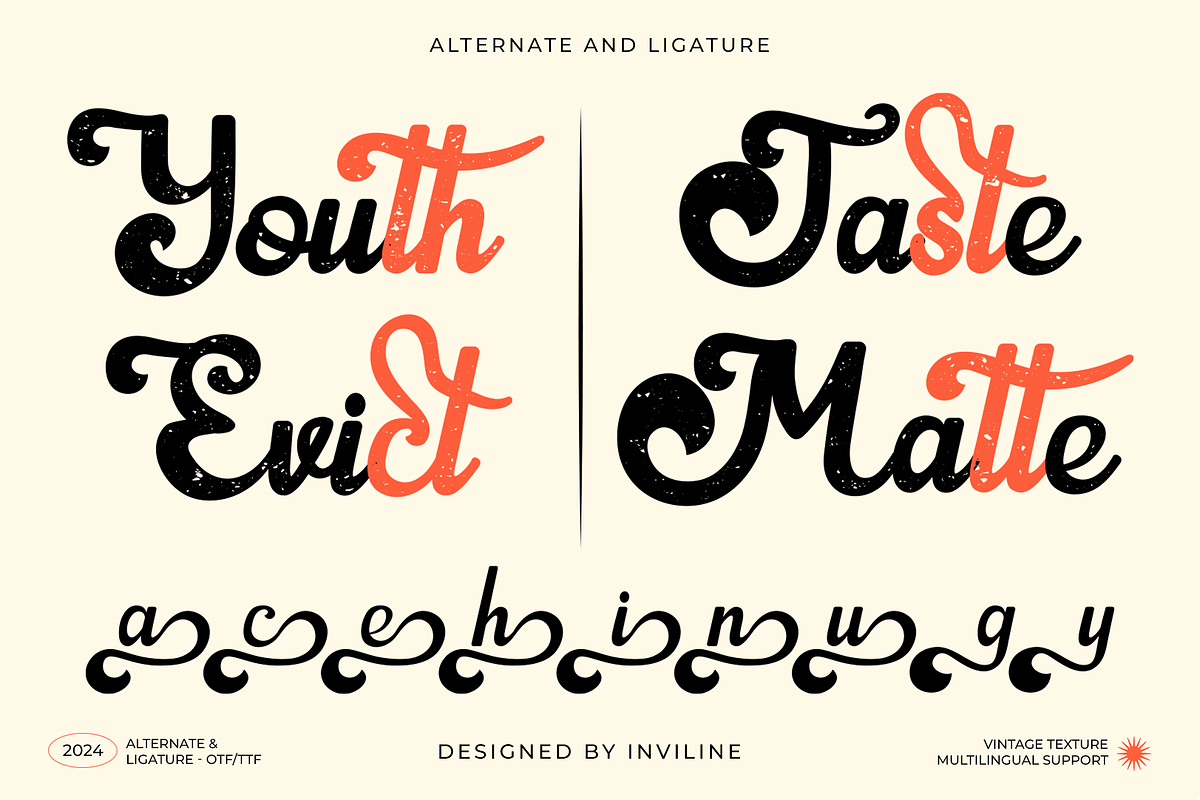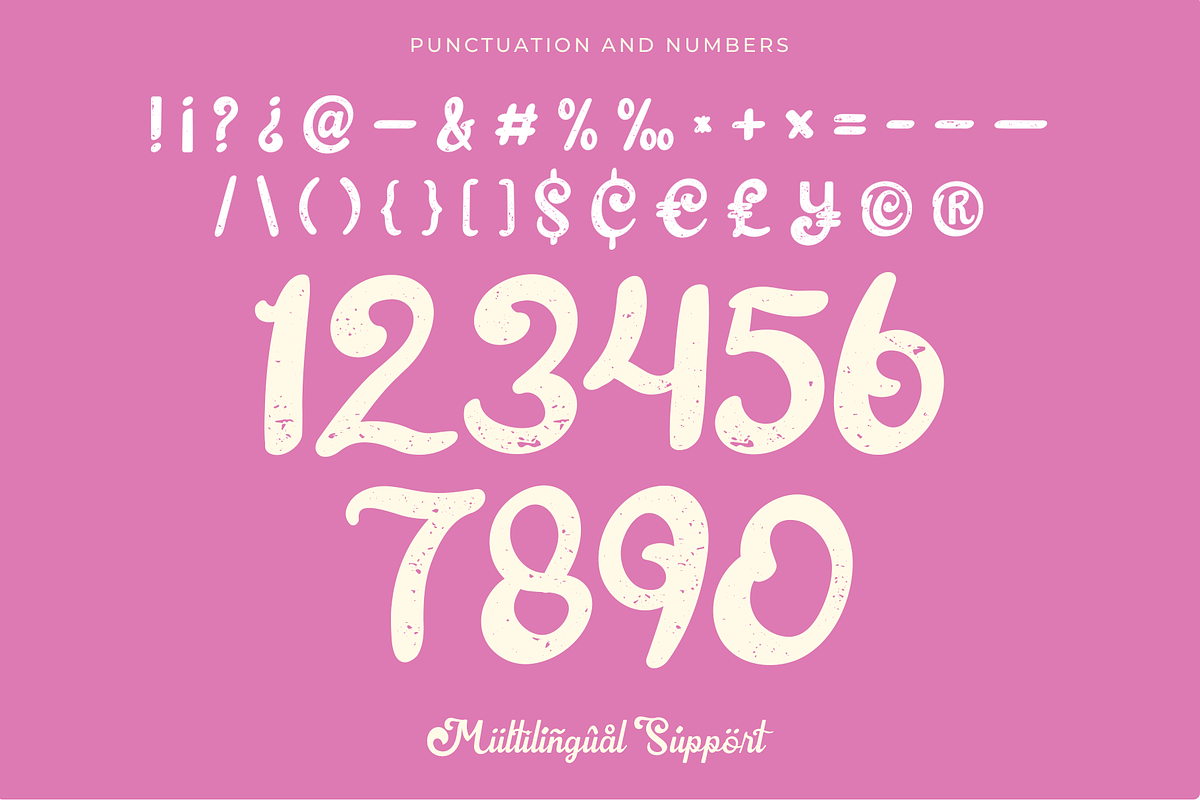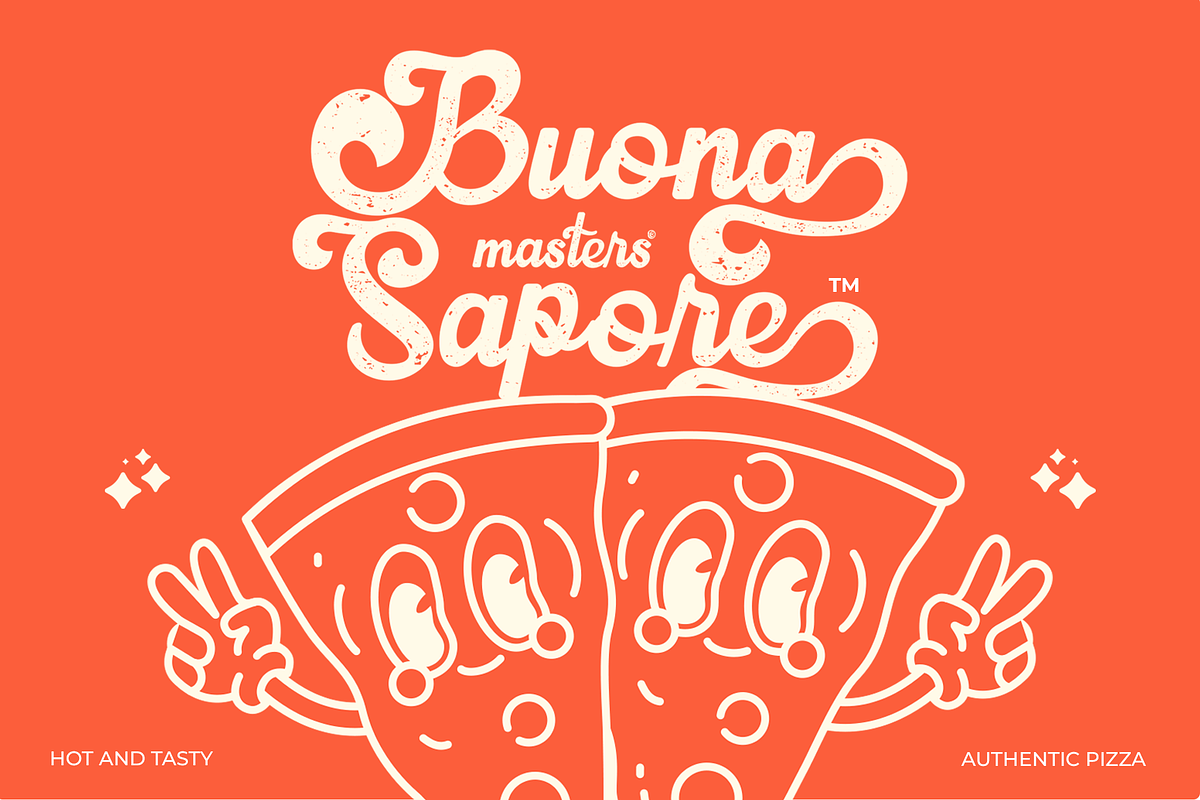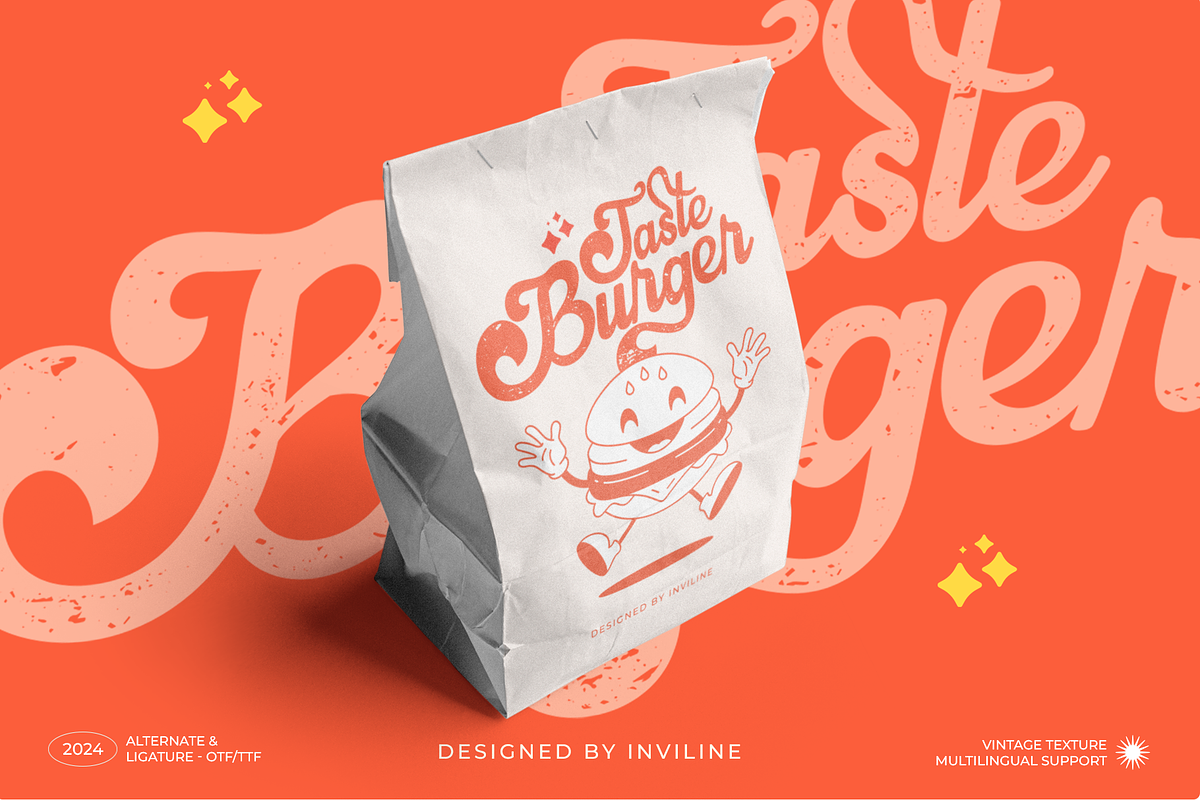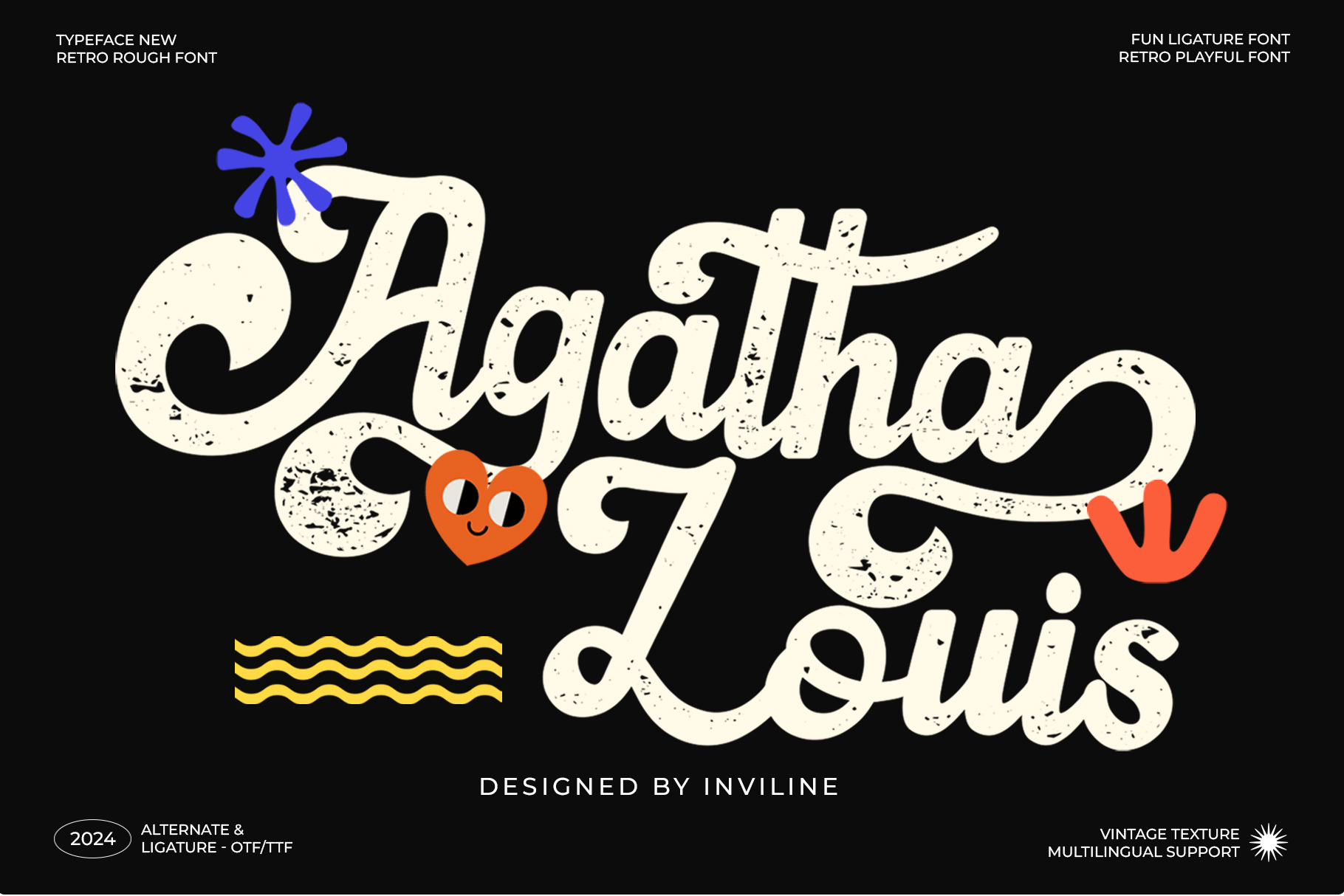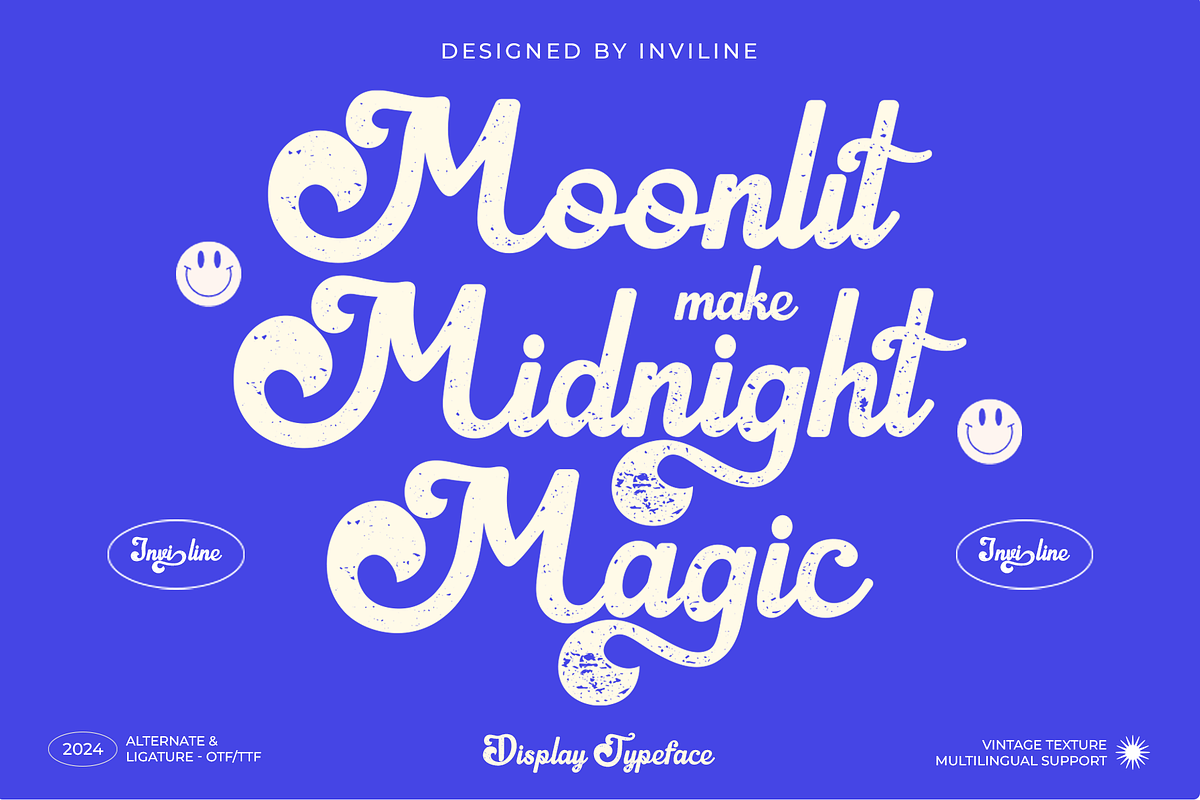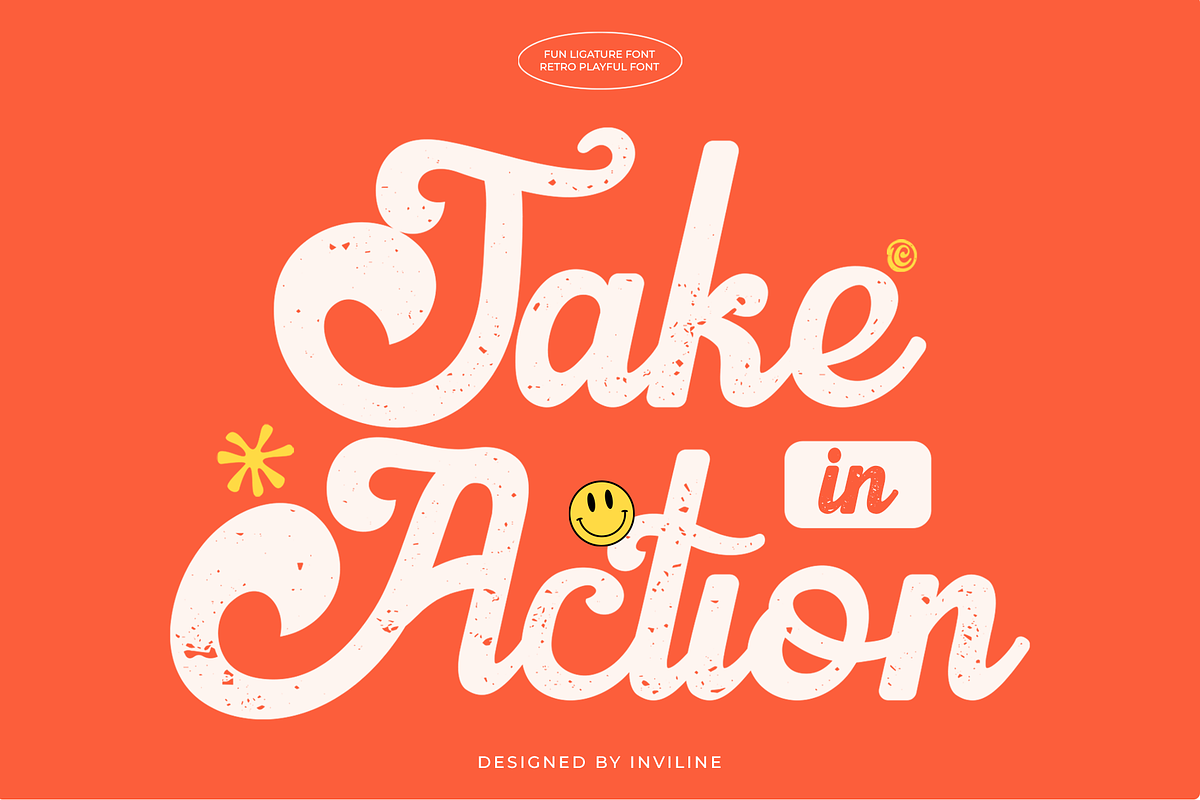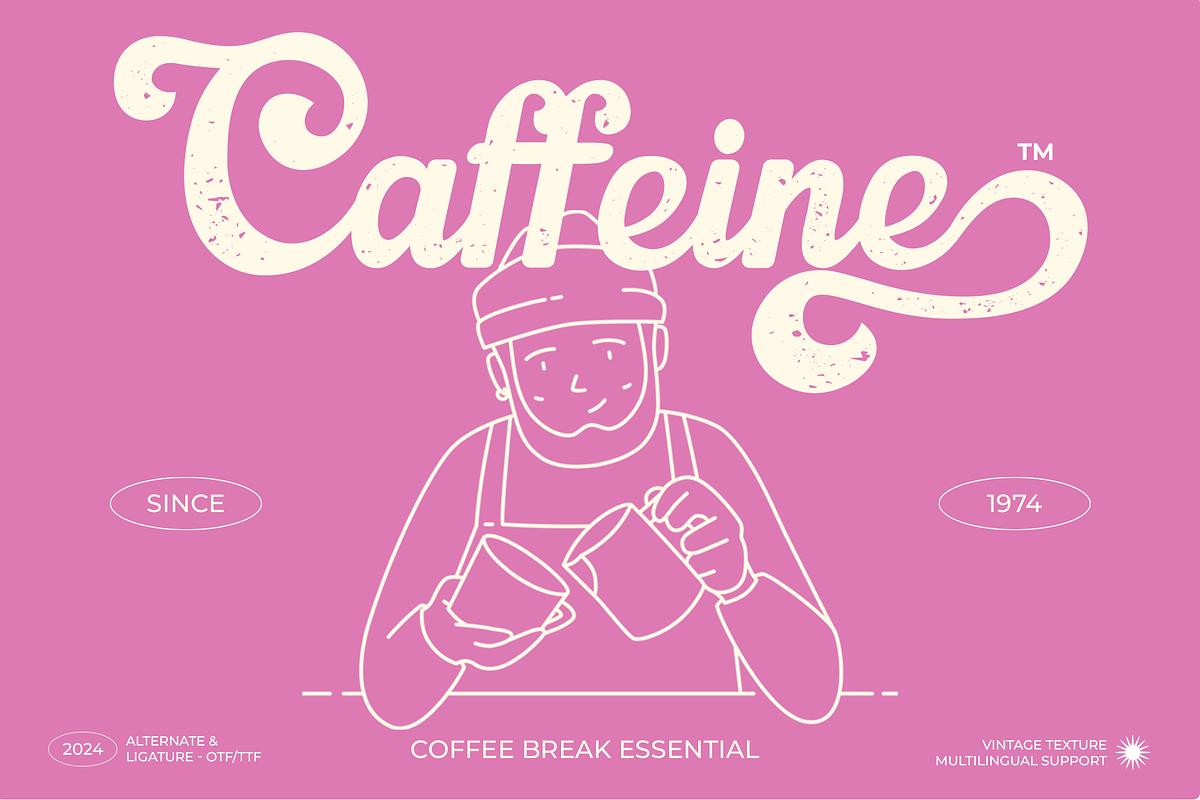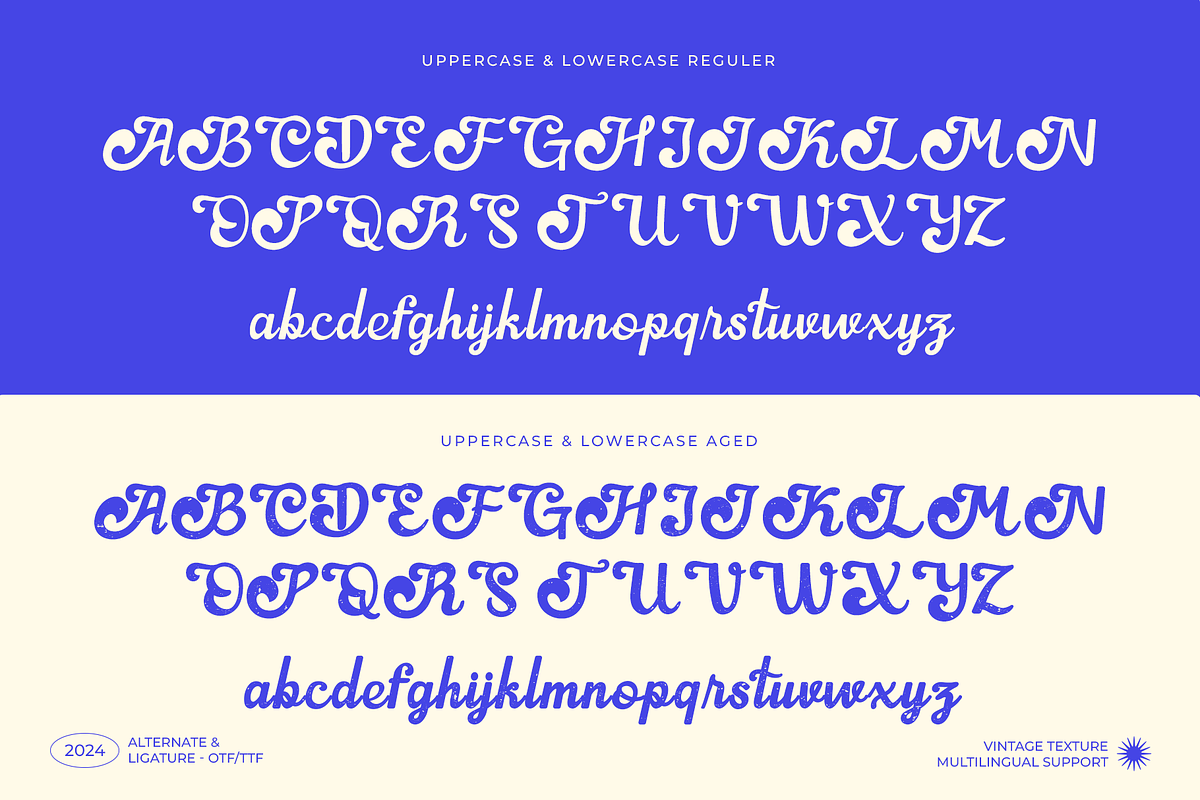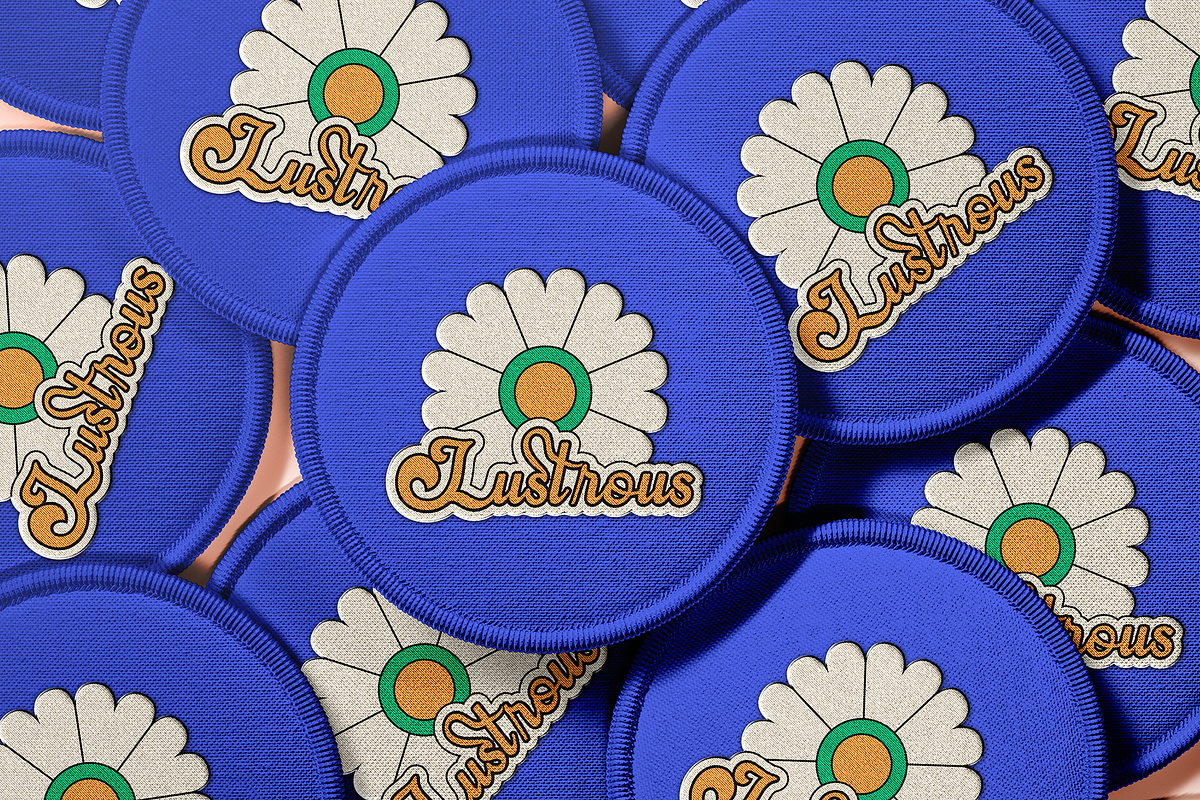
Agatha Louis - Vintage Script Font
Agatha Louis - Vintage Script Textured
Bring a touch of Fun and Classic to your designs with this meticulously crafted font collection. Perfect for adding a Vintage vibes to your branding, packaging, logos, and more.
- Uppercase & Lowercase Characters: Fully designed for a complete typographic experience
- Numerals & Punctuation: All the numbers and punctuation marks you need for any design task
- Multilingual Support: Includes characters for multiple languages, ensuring global usability
- High-Quality Design: Each font is crafted with attention to detail, ensuring a polished and professional look